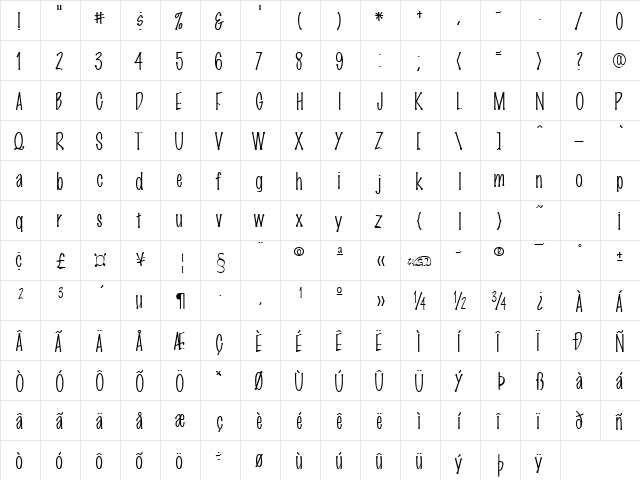
MarkingPen-Thin Regular
Design Context for MarkingPen-Thin Typeface
MarkingPen-Thin offers clean, dependable letterforms without strong stylistic allegiance, making it a practical choice for designers who need flexibility. Its slender proportions lend an understated elegance to any composition.